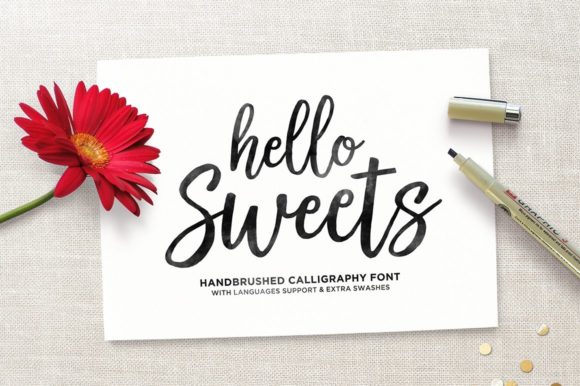
Journey into the realm of elegance and charm with Hello Sweets Font, a captivating script font meticulously crafted to ignite your creativity. Its delicate strokes and vintage allure will leave you spellbound, whispering tales of timeless beauty and sophistication.
Unleash the boundless potential of Hello Sweets Font and let your imagination run wild. Envision breathtaking wedding invitations, where each letter dances with grace, carrying the promise of love and joy. Create stationary art that exudes a timeless charm, capturing the essence of cherished memories. Your social media posts will radiate with an eye-catching allure, leaving an indelible mark on the hearts of your followers.
Hello Sweets Font is not merely a font; it's an artistic odyssey that invites you to explore the depths of creativity. Its versatility knows no bounds, extending from heartfelt personal letters to captivating marketing campaigns. Design logos that command attention, business cards that leave a lasting impression, and product packaging that tells a story.
Immerse yourself in the world of Hello Sweets Font, where beauty and functionality intertwine seamlessly. Its intricate details and flowing lines add a touch of magic to your designs, transforming ordinary words into captivating works of art. Let your imagination soar as you discover infinite possibilities with this remarkable font.
Indulge in the exquisite charm of Hello Sweets Font and elevate your creations to new heights. With its enchanting style and captivating presence, it's the perfect choice for designers, artists, and anyone seeking to add a touch of magic to their work. Embrace its timeless elegance and embark on a creative journey you'll never forget.